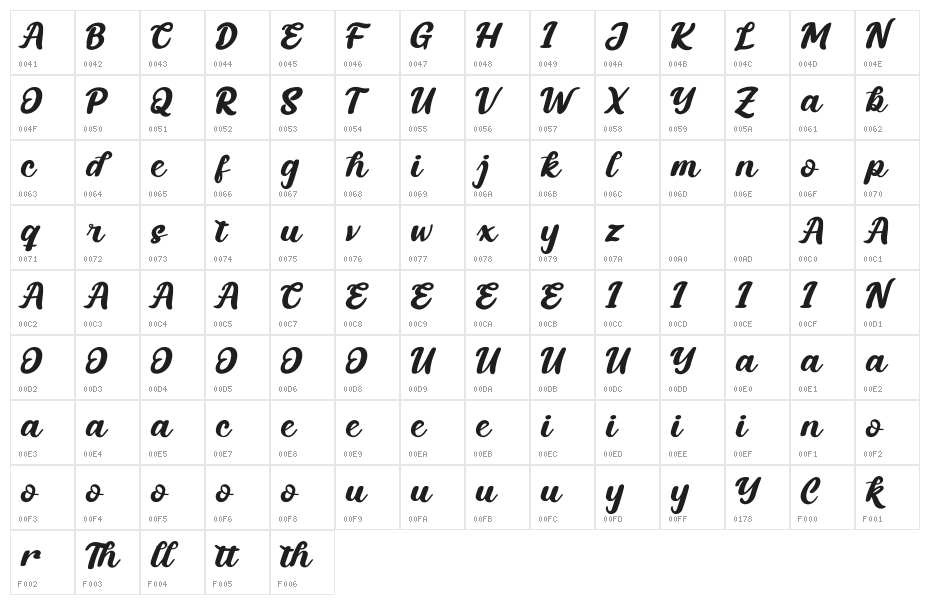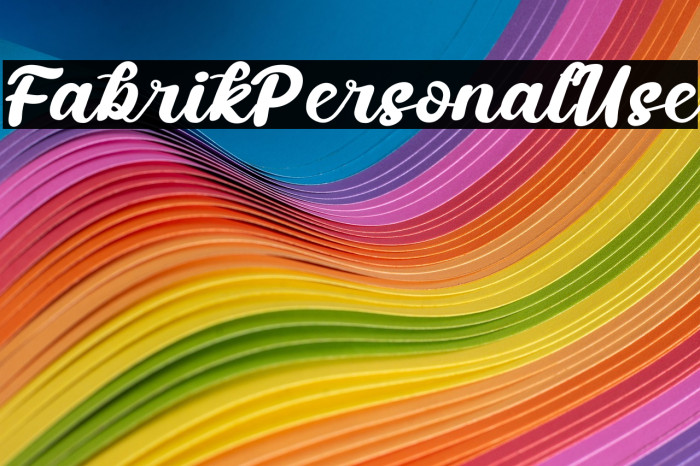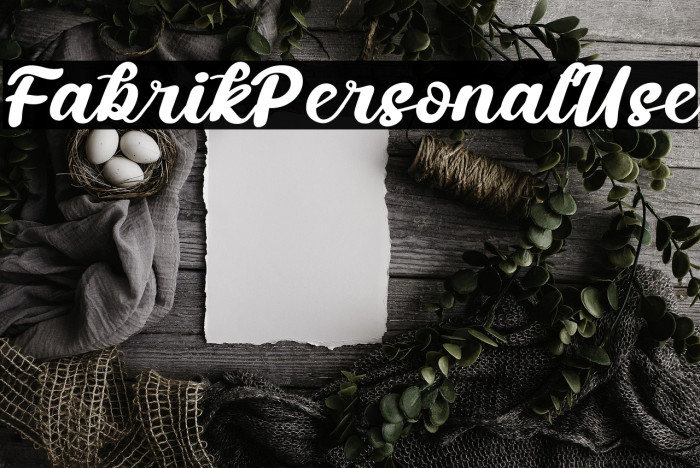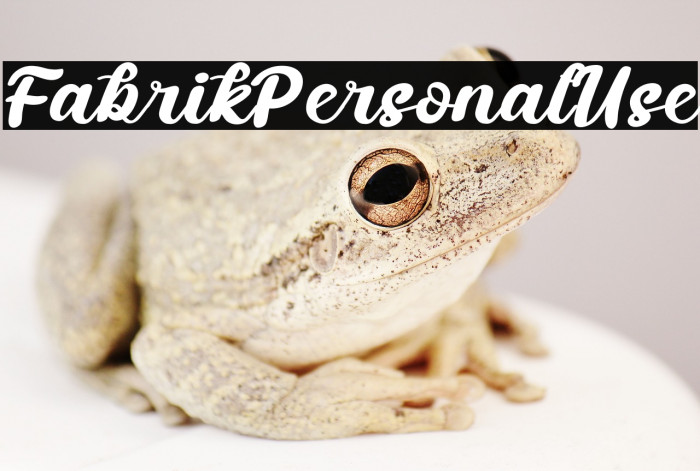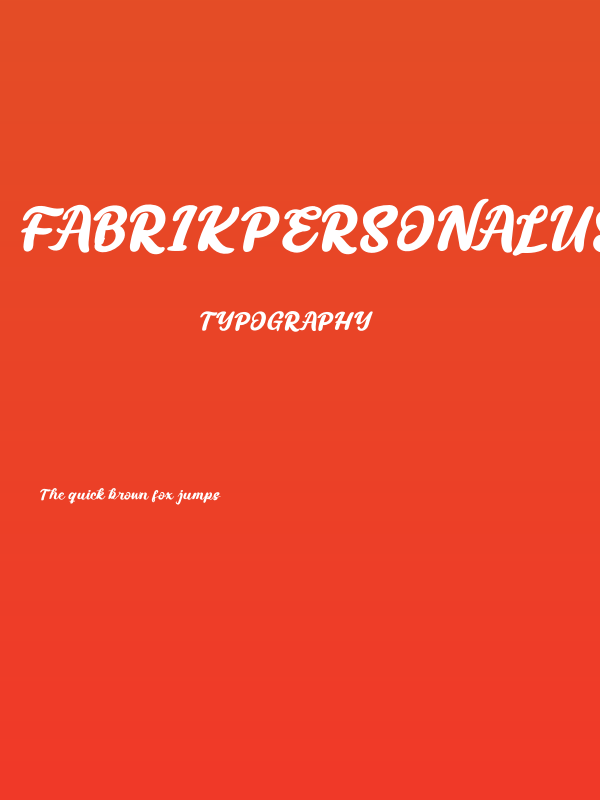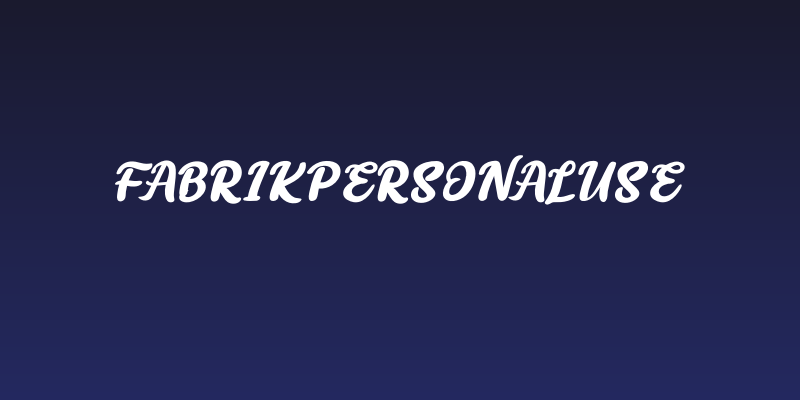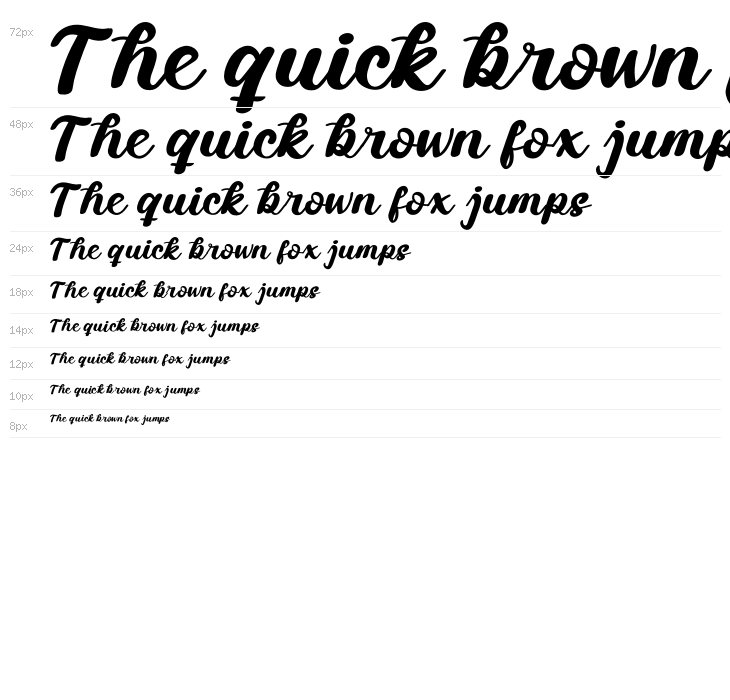
FabrikPersonalUse Font
FabrikPersonalUse Description
This font exhibits a bold and flowing script style, characterized by its smooth, cursive strokes and elegant curves. The uppercase letters are slightly more formal, with a consistent slant and rounded edges, while the lowercase letters maintain a fluid and connected appearance, enhancing the overall cohesiveness. The font's design is reminiscent of traditional calligraphy, yet it retains a modern touch with its clean lines and balanced proportions. The absence of special characters suggests a focus on alphabetic text, making it ideal for decorative purposes.
| Proposed Projects | Ideal for wedding invitations, greeting cards, branding projects, and elegant signage. |